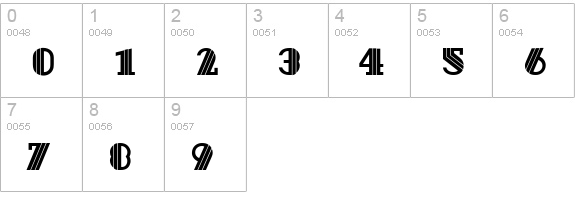
Hotel MN font is a beautifully crafted typeface that exudes elegance and sophistication. With its sleek lines and classic design, this font is perfect for adding a touch of luxury to any project. The timeless appeal of Hotel MN font makes it suitable for a wide range of applications, from branding to invitations to editorial design. One of the standout features of Hotel MN font is that it is available for free download at FontsMarket.com. This means that you can add this stunning font to your collection without any cost, making it a great choice for designers on a budget. Whether you're working on a personal project or a client's design, Hotel MN font is sure to elevate your work with its refined aesthetic. Download Hotel MN font for free today and see how it can enhance your creative projects with its sophisticated charm and timeless appeal.